Instagram reveals its first brand refresh in 10 years, with a new wordmark and three typefaces
The script survives, but it's been straightened out. Instagram's design team admitted it tried hundreds of other directions before returning to the handwritten approach. We find out more.
Instagram has surprised us all with its first brand refresh in a decade. That's a long time to live with your own handwriting. Its cursive wordmark has remained unchanged since 2016, while everything beneath it – Stories, Reels, the feed – has been pulled apart in every direction since.
The announcement was made yesterday afternoon, just as we were wrapping up the day. Instagram's Head, Adam Mosseri, was behind the big reveal, merely posting an image of the new identity. In his caption, he explained it was time for a refresh. "Cleaner and more modern, with references to the original and the simplicity and craft that's always made it Instagram," he writes.
As he suggests, the new mark is still a script, but it feels more modern. The loops are tighter, and the letters still hold hands. The flourishes now exist mainly on the 's', 'r ', and 'g', whereas everything else has been squared up.
Which is interesting because Jasmine Probst, director of product design at Instagram, says the team explored hundreds of directions before landing on this one. "Script reflects individuality, so referencing that felt right," she says. "The new wordmark is bolder and simpler, with touches of unexpectedness."
But that's just the logo. The wider brand system, revealed on Meta's design blog, brings an updated Instagram Sans, plus two new typefaces: Instagram Pen (a handwriting face) and Instagram Mono. The motion, layout and UI have all been refreshed, too, and they now have more room to breathe. The famous gradient hasn't changed and is still core to the brand, just used with a lighter touch.
"The refreshed brand system puts our community's creativity and self-expression front and centre," says May Hartono, director of brand design at Meta. "It's designed to spark courageous action and give people the confidence to create and show up as themselves, freely and fully."
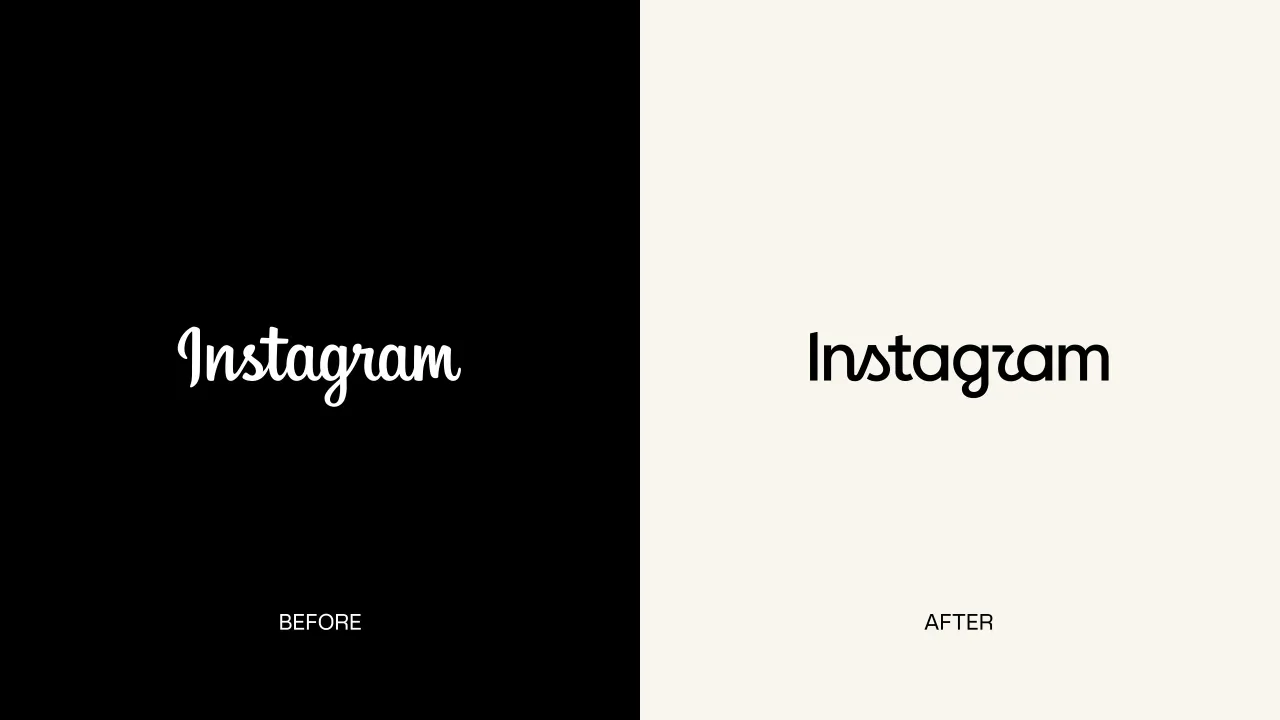
As with all these big rebrand announcements, reactions have been mixed and passionate. Mosseri's post on Instagram has had thousands of replies, a good chunk of which point out that the new 'r' can read as a 'z'. Not surprisingly, 'Instagzam' was doing the rounds within hours.
Designers, meanwhile, are actually split on the news: some were relieved to see the wobbly cursive tidied up, while others were left unconvinced by a mark that's "half script, half sans".